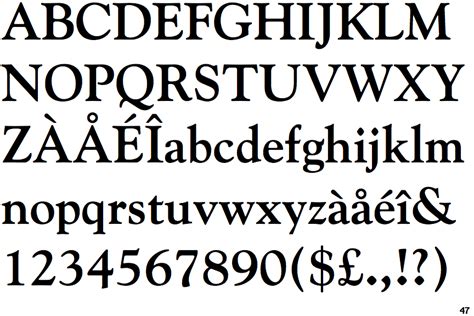
Goudy Bold Font. Over the course of 50 years, the charismatic and enterprising frederic w. A revival of frederic goudy's 'goudy oldstyle' with regular and italic styles, and extended.
Over the course of 50 years, the charismatic and enterprising frederic w. Web goudy™ bold | fonts.com. Web goudy series™ bold | fonts.com. A revival of frederic goudy's 'goudy oldstyle' with regular and italic styles, and extended.
Web goudy™ bold | fonts.com. Web goudy series™ bold | fonts.com. A revival of frederic goudy's 'goudy oldstyle' with regular and italic styles, and extended. Over the course of 50 years, the charismatic and enterprising frederic w. Web goudy™ bold | fonts.com.